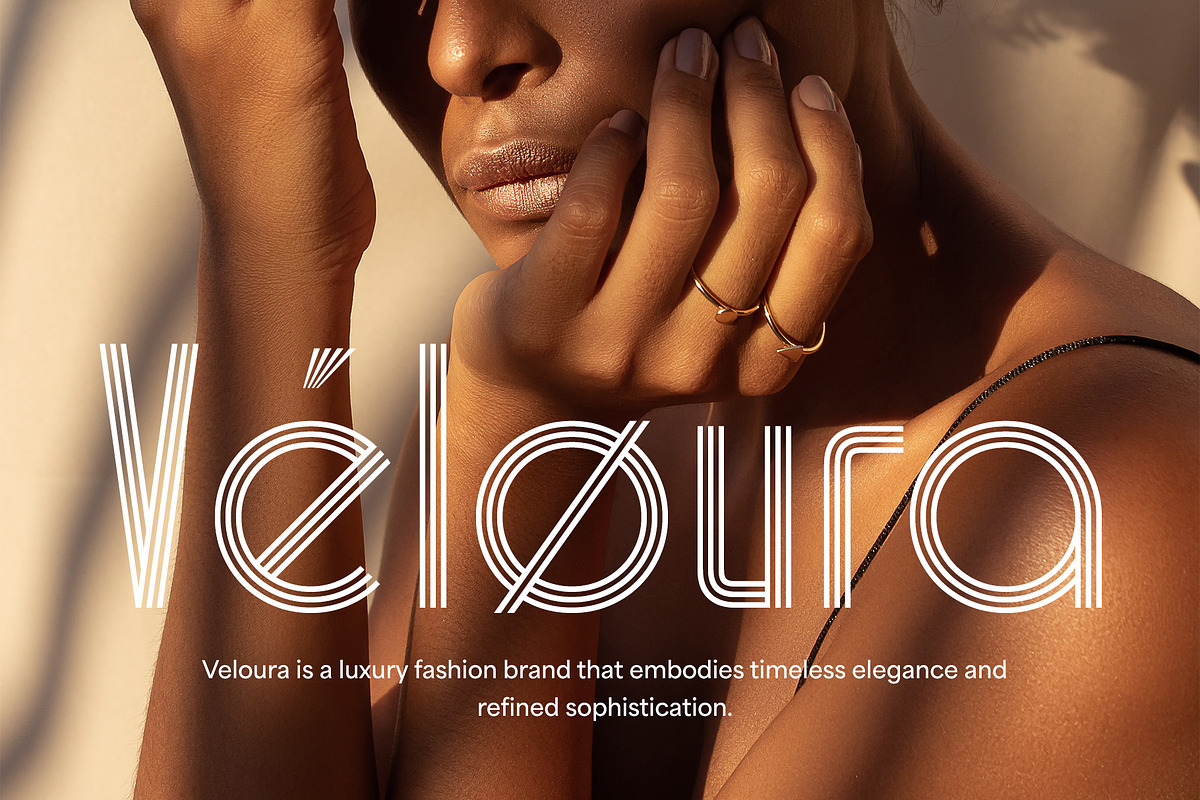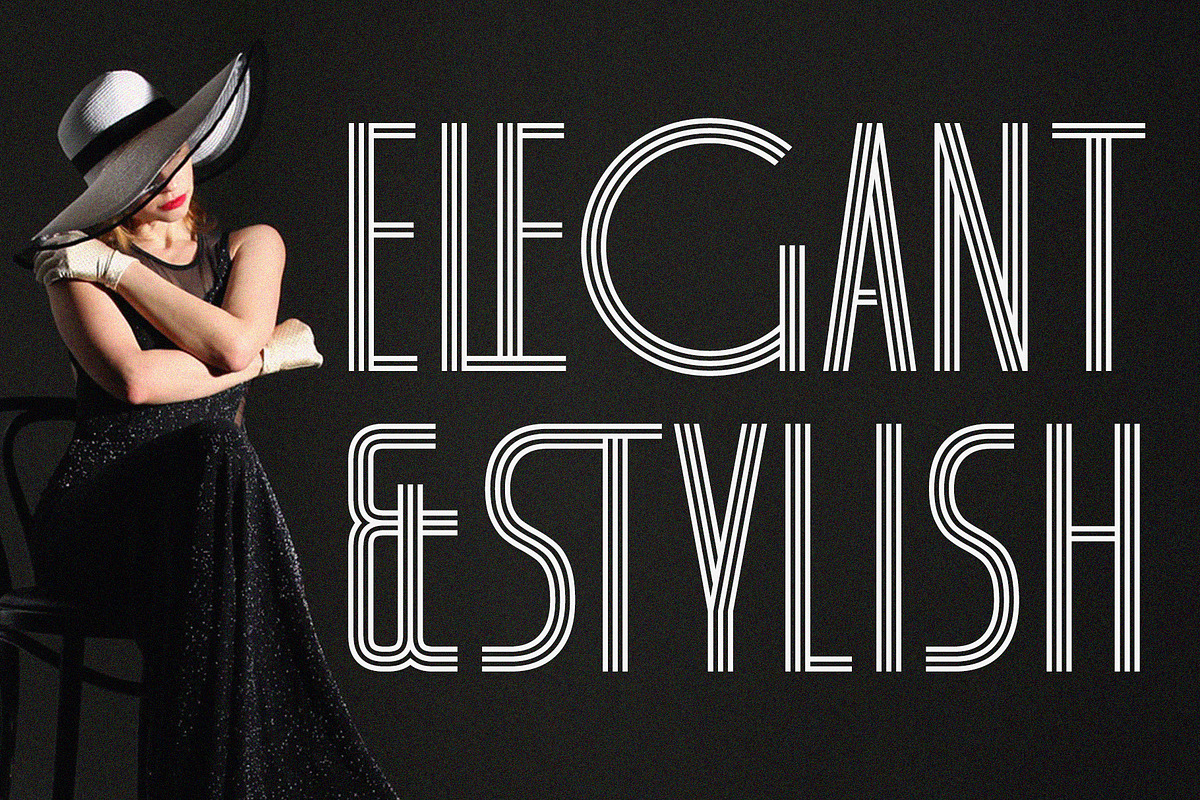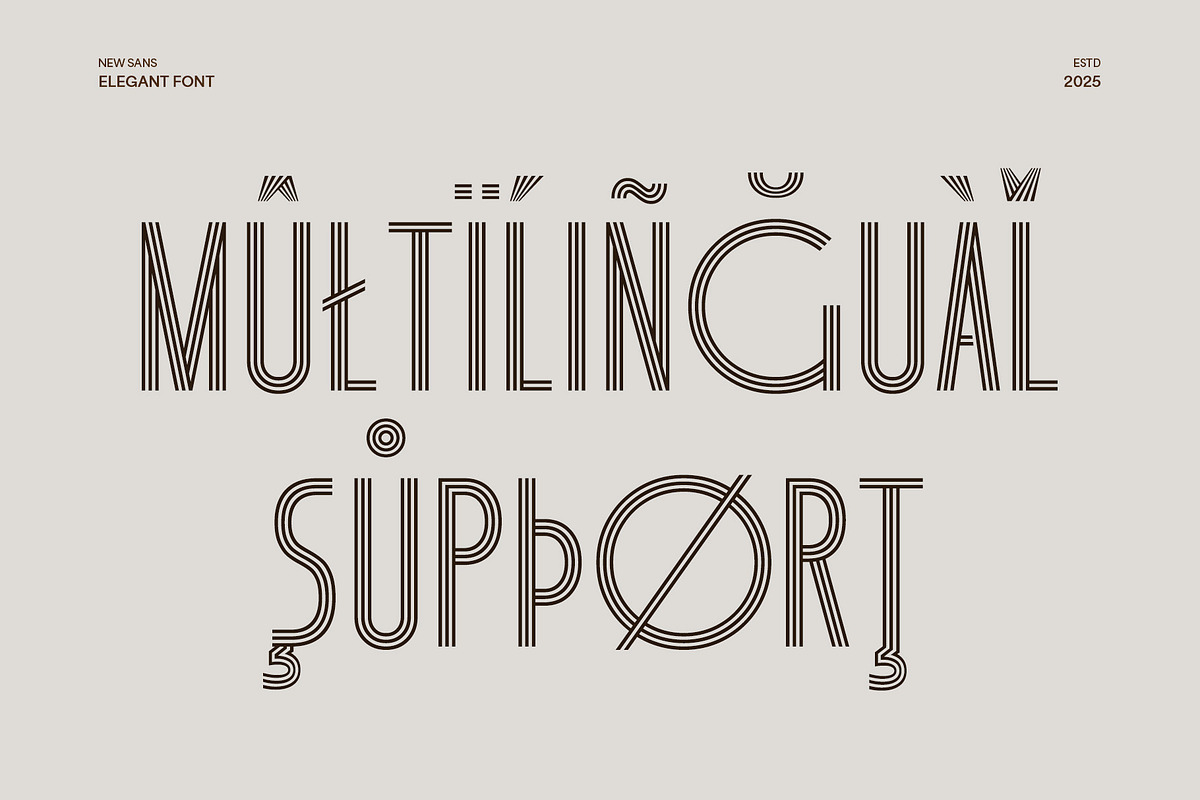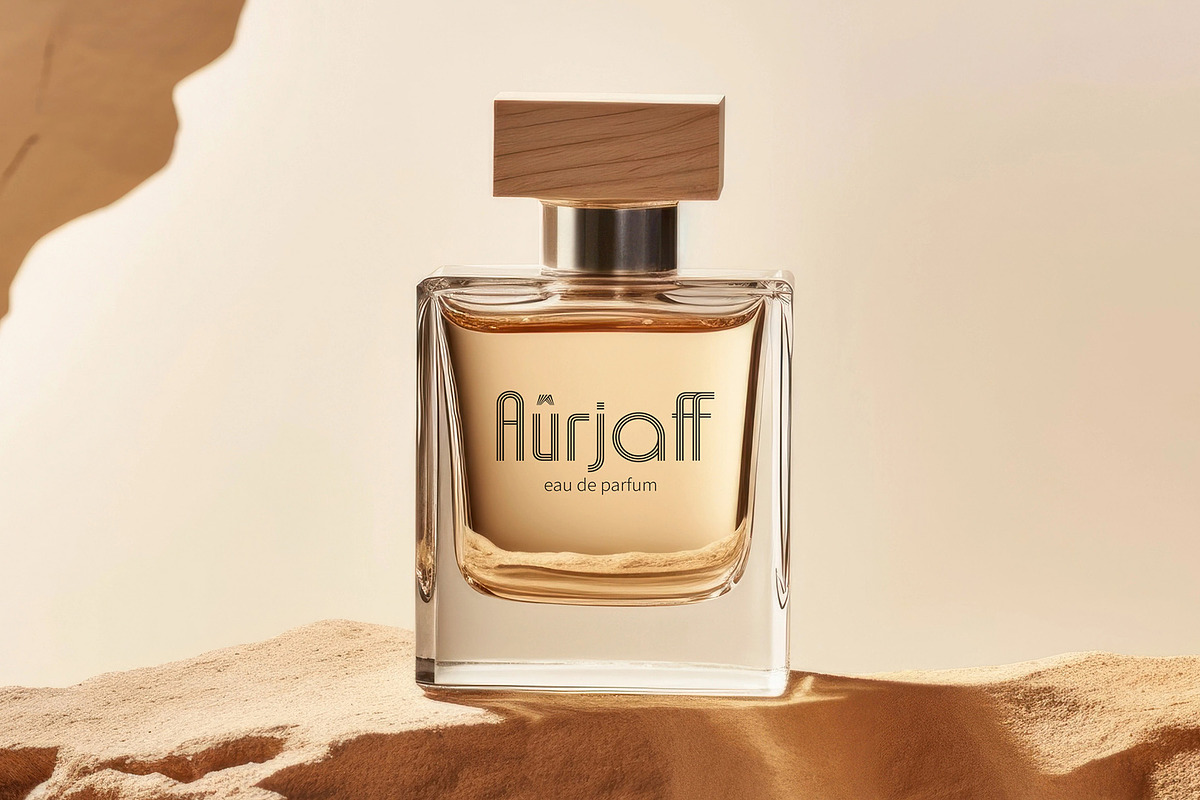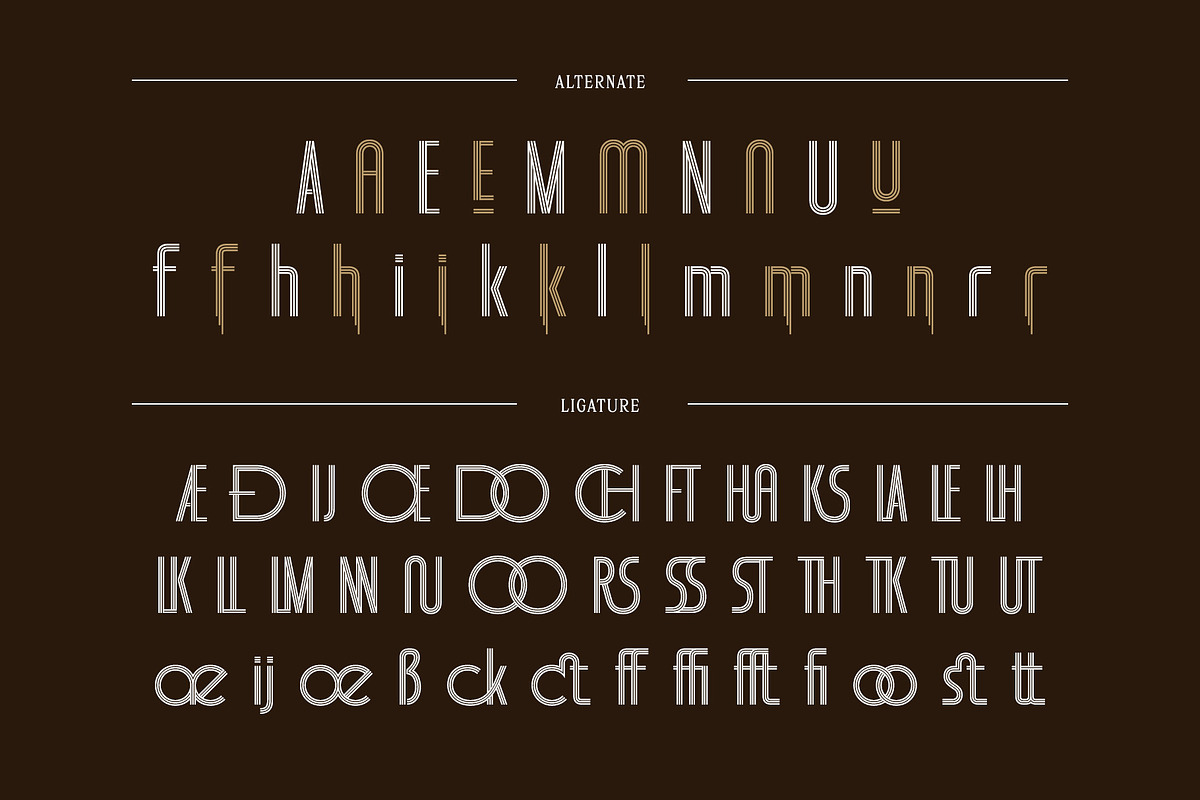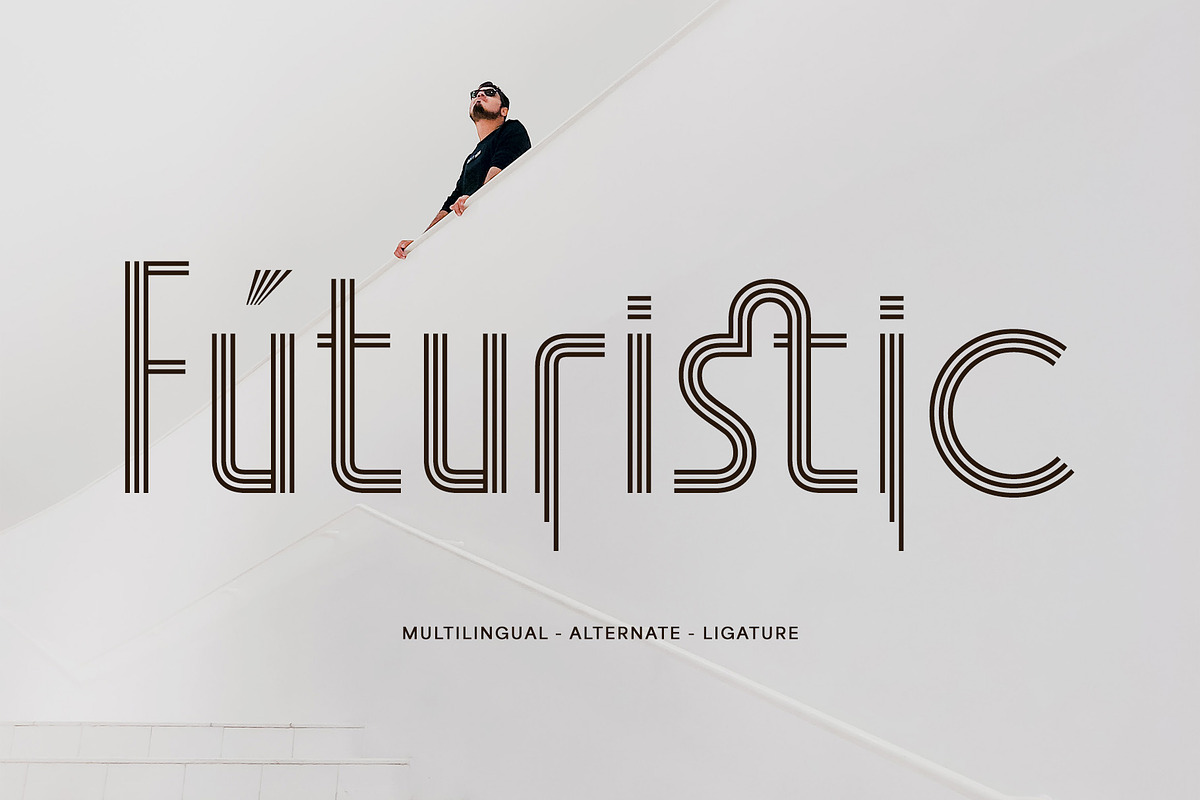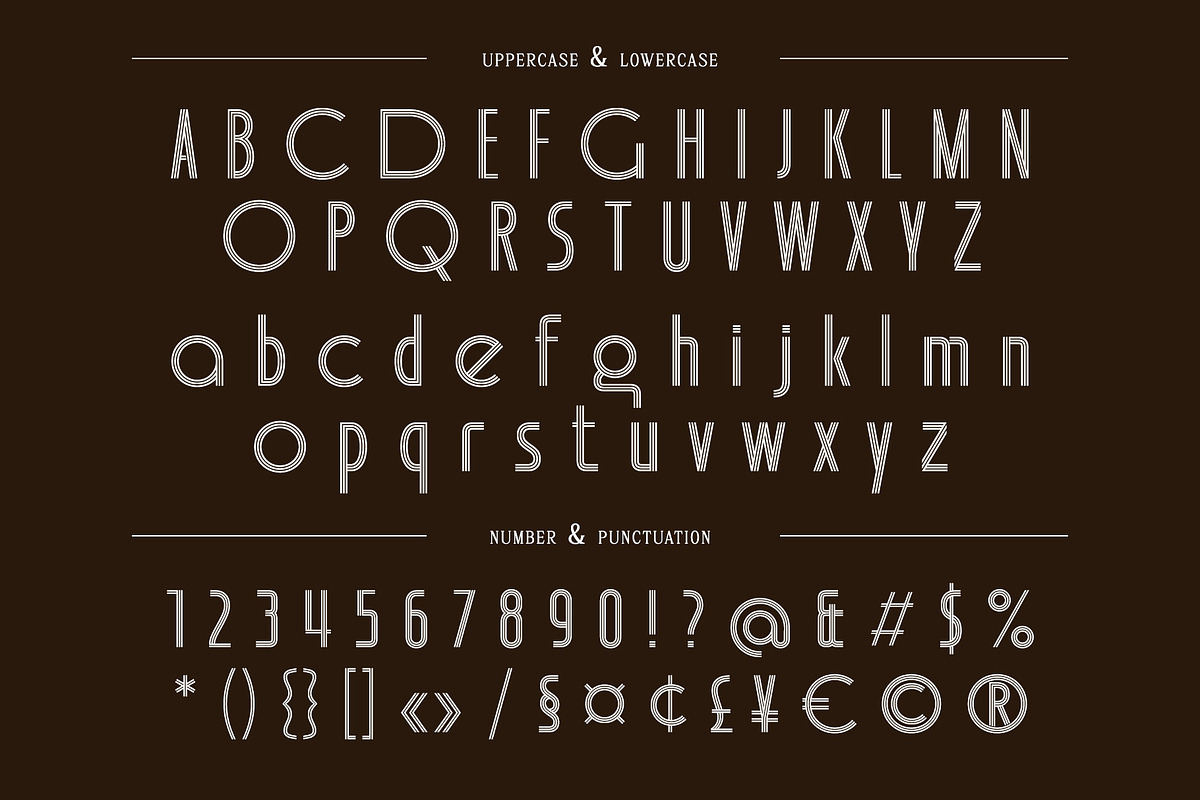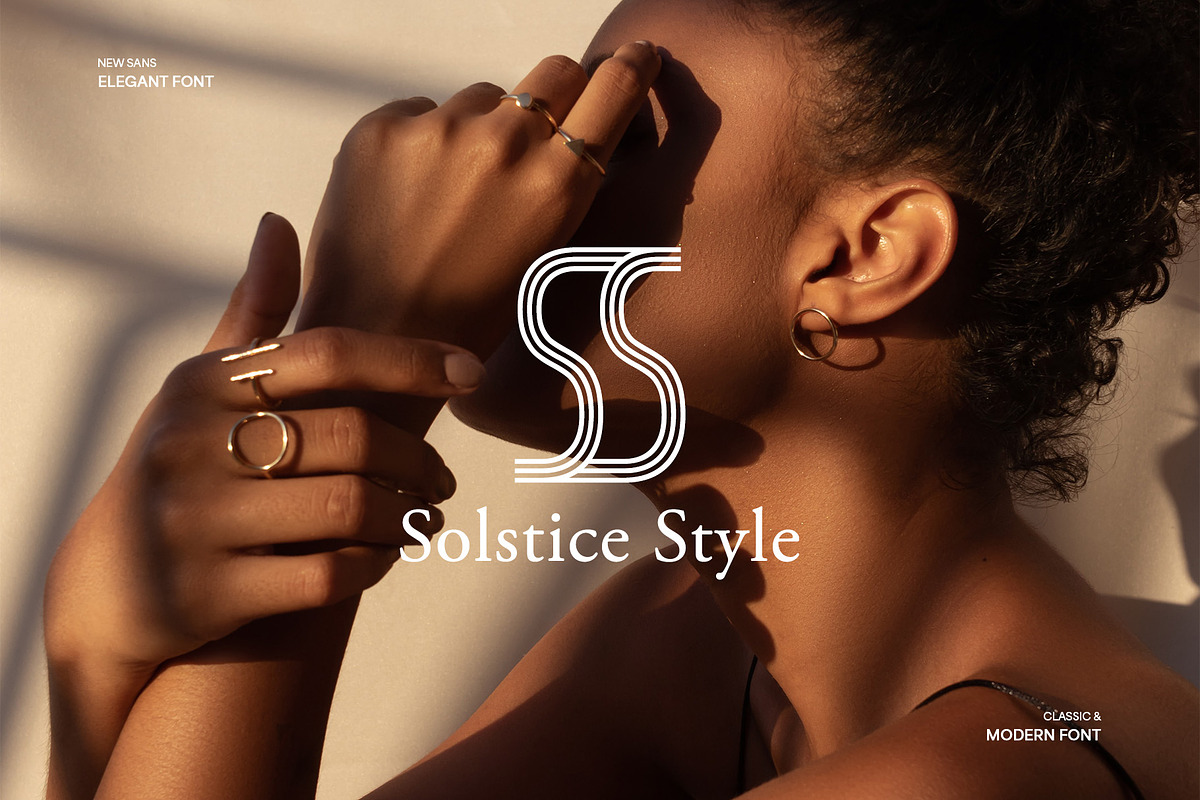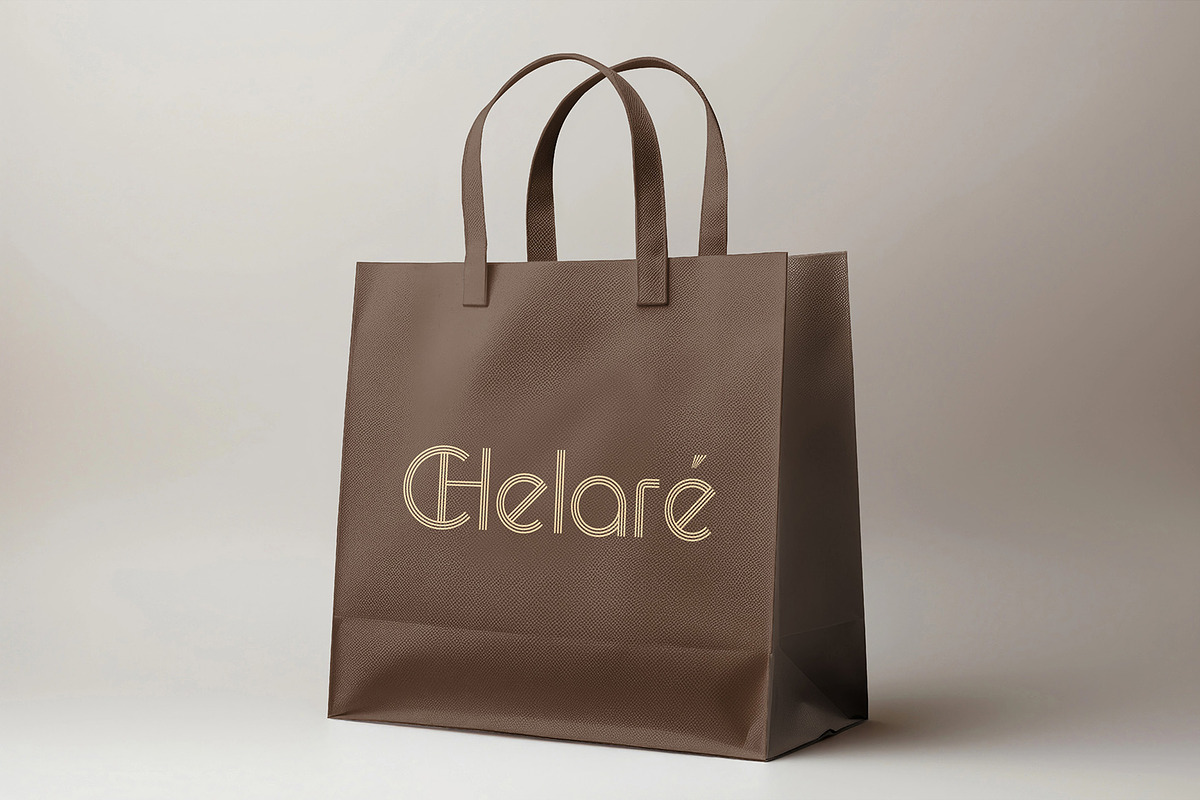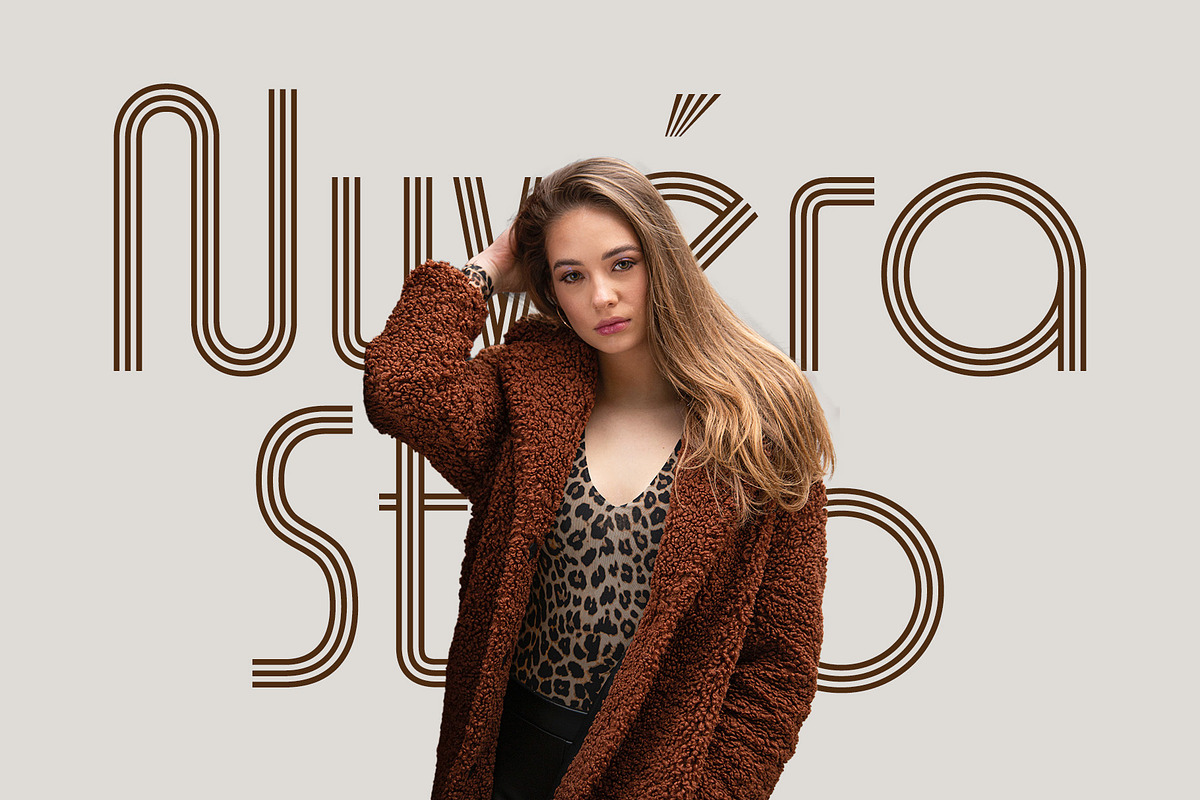
KG MOONA – A Modern Elegant Sans
Introducing MOONA, a modern sans serif font with a clean, elegant design that blends timeless sophistication with contemporary style. Featuring unique double-line strokes and sleek geometric construction, MOONA stands out as a refined choice for designers seeking clarity and character in their typography.
Perfect for branding, fashion editorials, logos, posters, social media graphics, and high-end minimalist design projects, MOONA is crafted to bring a stylish, professional touch to any visual composition.
This font includes full multilingual support, making it ideal for global projects and diverse creative needs. Whether you're designing a luxury brand identity or a modern magazine layout, MOONA offers the flexibility and finesse your work deserves.
- Modern & Elegant Sans Serif Style
- Unique double-line letterforms
- Classic meets contemporary aesthetic
- Multilingual support included
- Perfect for fashion, branding, editorial, and minimalist design
Bring a sense of modern elegance to your design toolbox with MOONA – a font that speaks with style and substance.